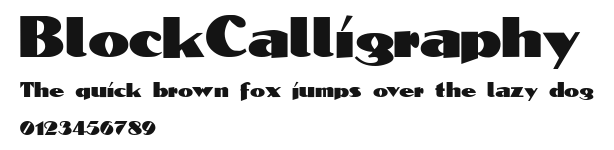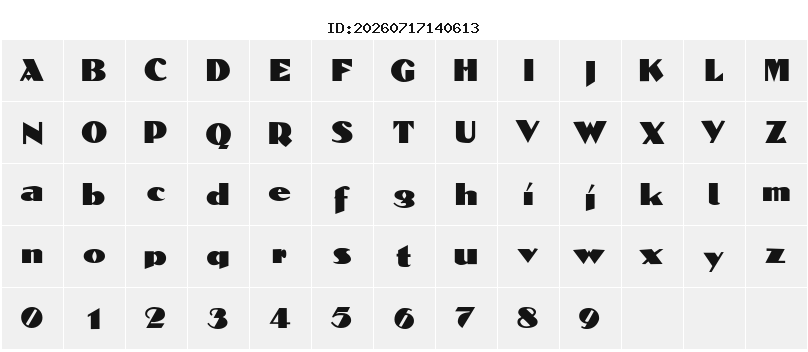
• Font Name: BlockCalligraphy
• Full Font Name: BlockCalligraphy Normal
About BlockCalligraphy.ttf
BlockCalligraphy.ttf is a modern, elegant sans-serif font designed for ultimate readability and visual harmony. Perfect for branding, headlines, web design, and print materials.